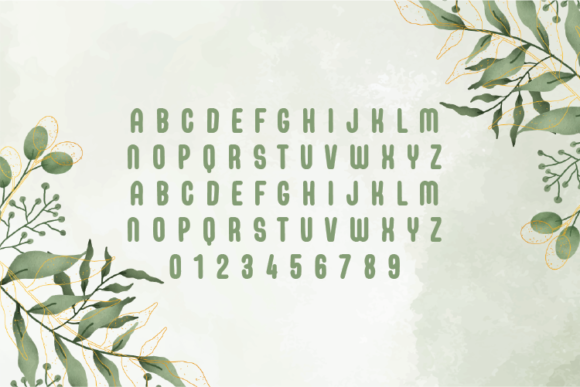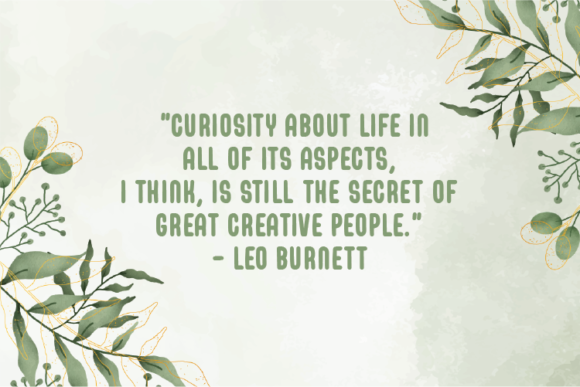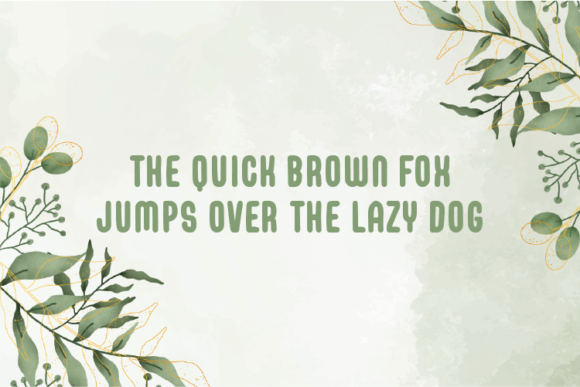
Introduction to Lettering Handmade Font
Have you ever sat down with a blank sheet of paper and a pen, only to find yourself lost in the creative process of crafting the perfect handwritten font? For many designers, this is a moment of pure joy – a chance to tap into their inner artist and bring a unique idea to life. The Lettering Handmade Font is a beautiful display font that captures this essence, with each character carefully crafted to evoke a sense of hand-drawn charm.
What sets this font apart is its commitment to authenticity, with no nodes altered in its creation. This attention to detail makes it a valuable resource for designers looking to add a touch of personality to their creative projects. Whether you’re working on a free download, a product design, or a high-quality print, the Lettering Handmade Font is a design resource that’s sure to impress.
With its transparent background and versatile style, this font is perfect for a wide range of applications – from quotes and notes to tees and product labels. And the best part? It’s available to download and use in your next creative project, waiting to bring your ideas to life in a beautiful, handcrafted way.
Key Features of Lettering Handmade Font
- High-quality design resource for creative projects, featuring a unique, handmade style that adds a personal touch to any design.
- Includes a transparent background, allowing for seamless integration into various design elements and backgrounds.
- Each font is carefully crafted to provide high-resolution images, making it perfect for use in print and digital applications.
- With a large character set, including uppercase and lowercase letters, numbers, and punctuation, this font is ideal for a variety of creative projects, from logos and branding to typography and graphics.
- Its unique, handmade aesthetic sets it apart from other fonts, making it a standout design resource for those looking to add a touch of personality to their work.
Honest Review: Lettering Handmade Font
I recently had the chance to work with the Lettering Handmade Font, and I must say it’s a fantastic addition to any designer’s toolkit. ✨ This beautiful, handcrafted font is perfect for those looking to add a touch of elegance and whimsy to their creative projects.
- Some users may find the font’s unique style a bit too whimsical for certain projects
Overall, I’m really impressed with the Lettering Handmade Font. It’s a great choice for designers looking to add a touch of personality to their work. While it may have some limitations, it’s definitely worth checking out for your next creative project. ⚠️
Lettering Handmade Font
The Lettering Handmade Font is a unique and creative design resource that can elevate your projects. With its high-quality and transparent background, this font is perfect for any creative project.
Tips for Getting the Most Out of Lettering Handmade Font
Here are some tips to get the most out of the Lettering Handmade Font:
- Use the font in combination with other design elements to create a unique look.
- Experiment with different font sizes and styles to add visual interest.
- Use the font in a variety of creative projects, such as logos, quotes, and titles.
The Lettering Handmade Font is perfect for:
- Logo design and branding.